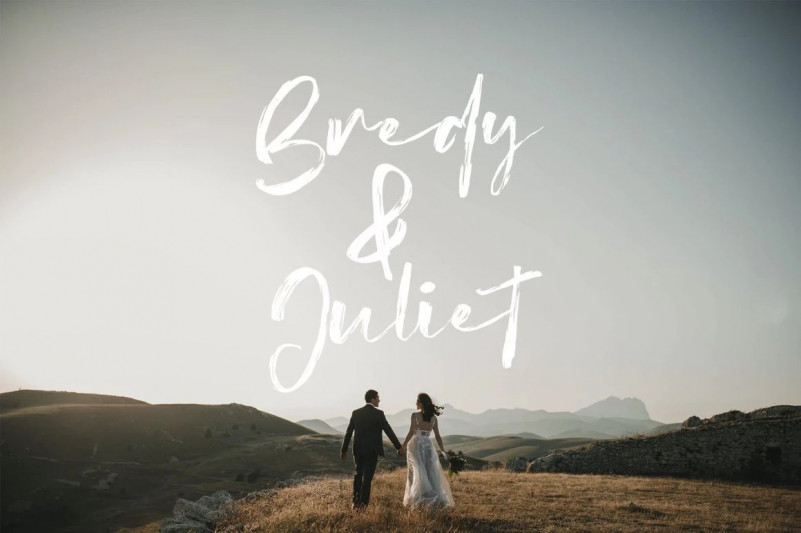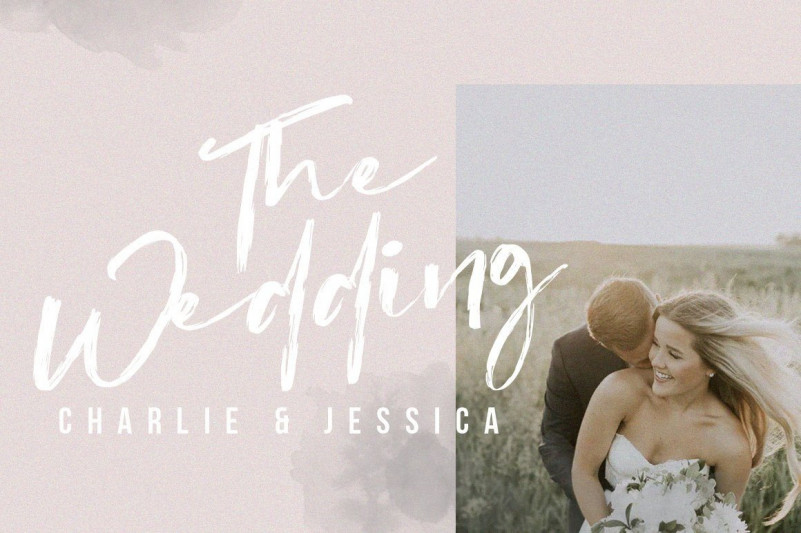
Melisha Script Font
Melisha is a sweet, romantic calligraphy typeface with characters dancing along the baseline. It has a casual, yet elegant touch. Can be used for various purposes such as logos, wedding invitations, headings, t-shirts, letterheads, signage, labels, news, posters, badges and many more.